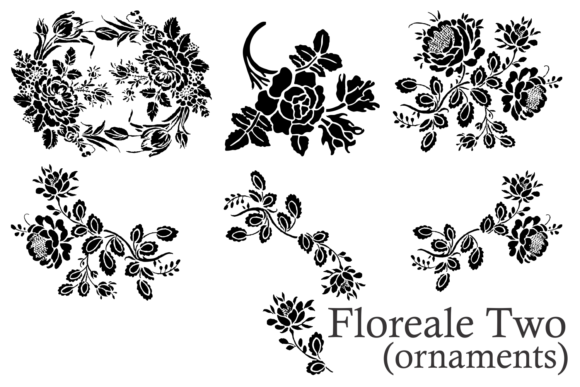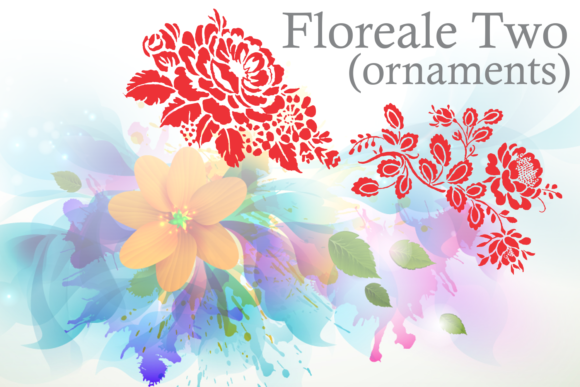
Discover the Beauty of Floreale Two Font: A Treasure Trove of Floral Ornaments
Are you a designer, crafter, or DIY enthusiast looking for a unique and elegant way to add a touch of nature to your projects? Look no further than the Floreale Two font, a stunning collection of beautiful floral ornaments that will transport your designs to a world of elegance and sophistication.
What is Floreale Two Font?
Floreale Two font is a carefully crafted typeface that features an exquisite selection of floral ornaments, perfect for adding a touch of whimsy and charm to your designs. With its delicate and intricate illustrations, this font is sure to captivate your audience and leave a lasting impression.
Key Features of Floreale Two Font
- Beautiful Floral Ornaments: Floreale Two font boasts an impressive collection of floral ornaments, each one meticulously designed to showcase the beauty of nature.
- Elegant and Whimsical: The font’s elegant and whimsical design makes it perfect for a wide range of projects, from wedding invitations and stationery to packaging and branding.
- High-Quality Illustrations: Each floral ornament is carefully illustrated to ensure high-quality and crisp designs that will look stunning in any project.
Uses of Floreale Two Font
Floreale Two font is a versatile typeface that can be used in a variety of projects, including:
- Wedding Invitations and Stationery: Add a touch of elegance and sophistication to your wedding invitations, stationery, and other paper crafts.
- Packaging and Branding: Use Floreale Two font to create beautiful and eye-catching packaging and branding materials that will make your products stand out.
- Digital Designs: Incorporate the font into your digital designs, such as social media graphics, blog posts, and website headers.
- Crafting and Scrapbooking: Add a personal touch to your crafting and scrapbooking projects with the beautiful floral ornaments of Floreale Two font.
Floreale Two font is a treasure trove of beautiful floral ornaments that will add a touch of elegance and sophistication to your designs. With its delicate and intricate illustrations, this font is perfect for designers, crafters, and DIY enthusiasts looking to create stunning and unique projects. Whether you’re working on a wedding invitation, packaging, or digital design, Floreale Two font is sure to captivate your audience and leave a lasting impression.